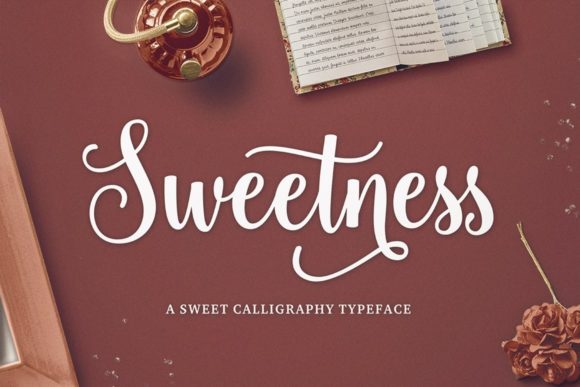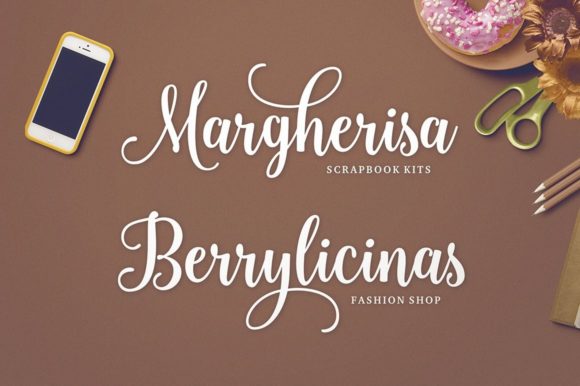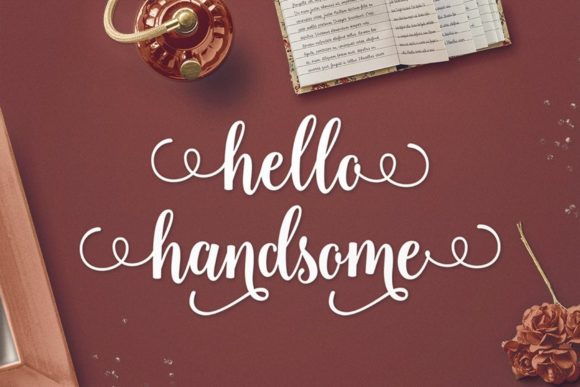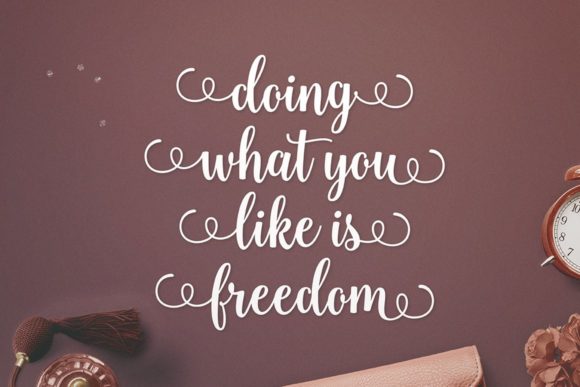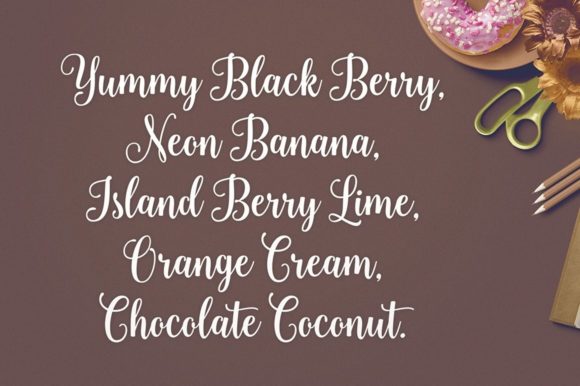
Sweetness Script Font
About Sweetness Script Font
Sweetness Script is soft and sweet calligraphy font, with characters dance along the baseline. It has a casual and elegant touch. This font is PUA encoded which means you can access all of the glyphs and swashes with ease!